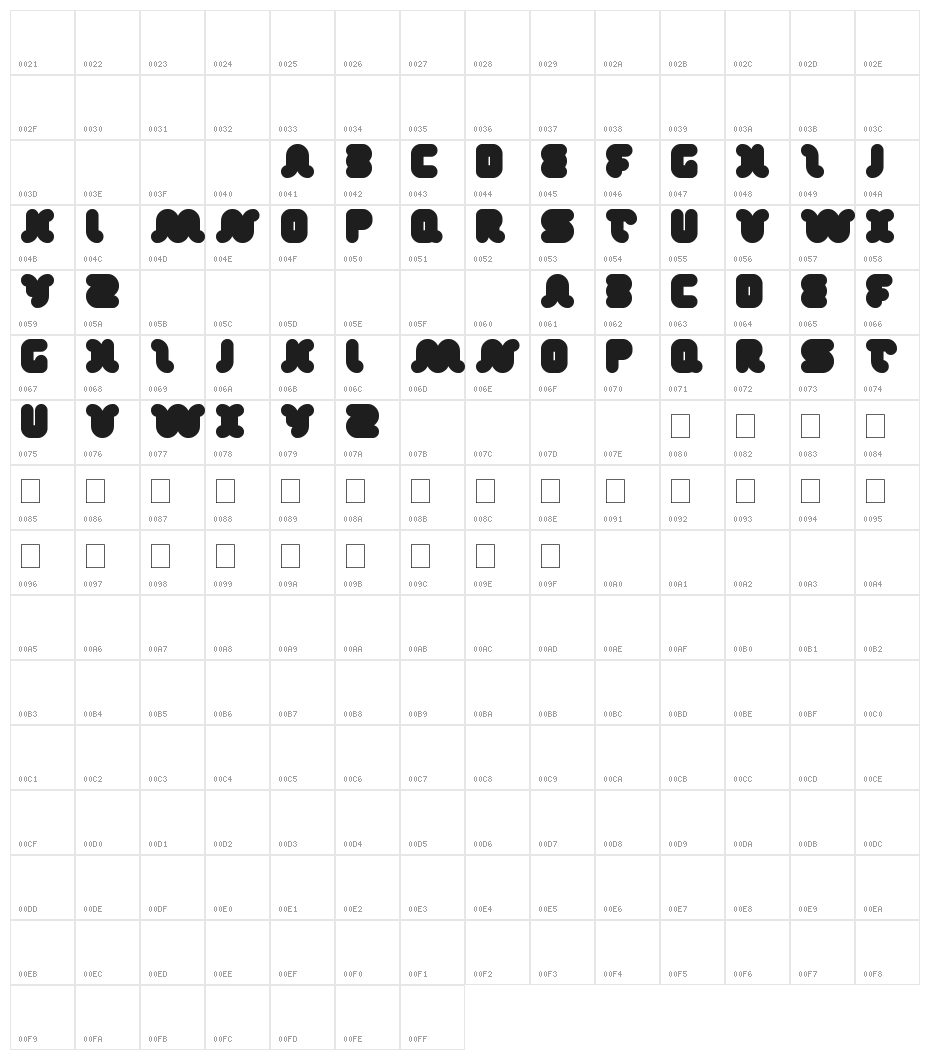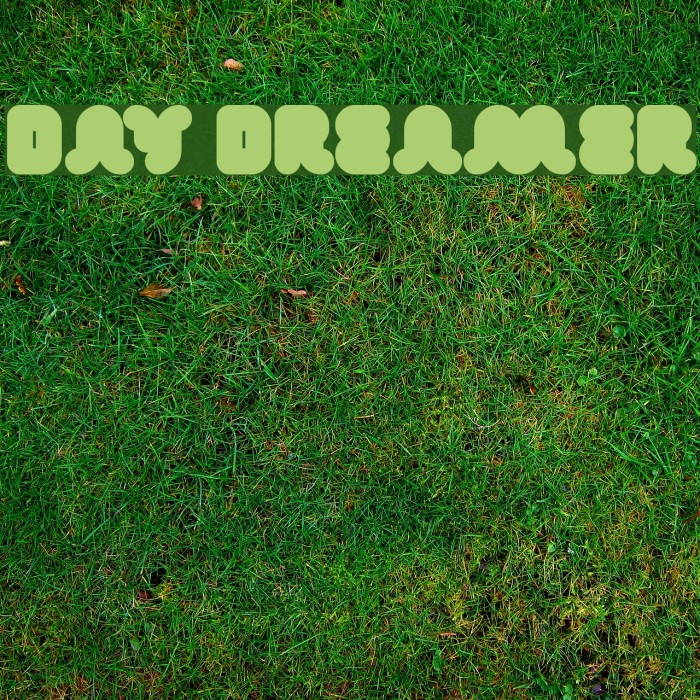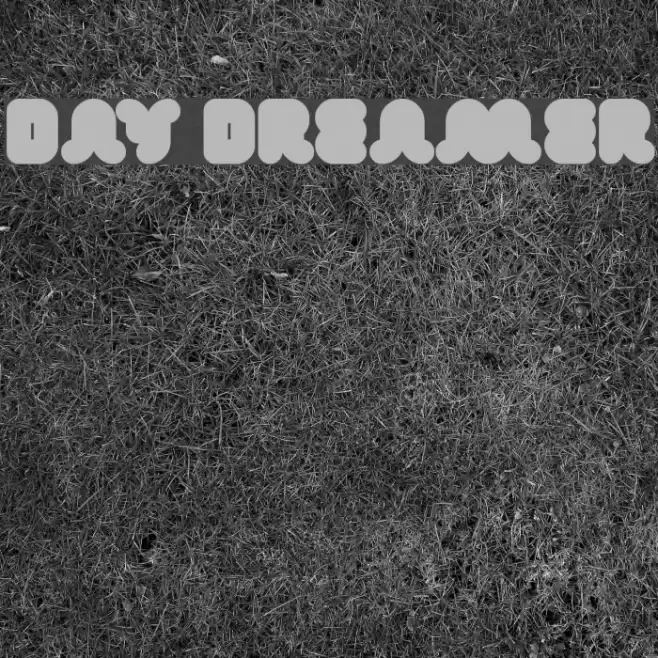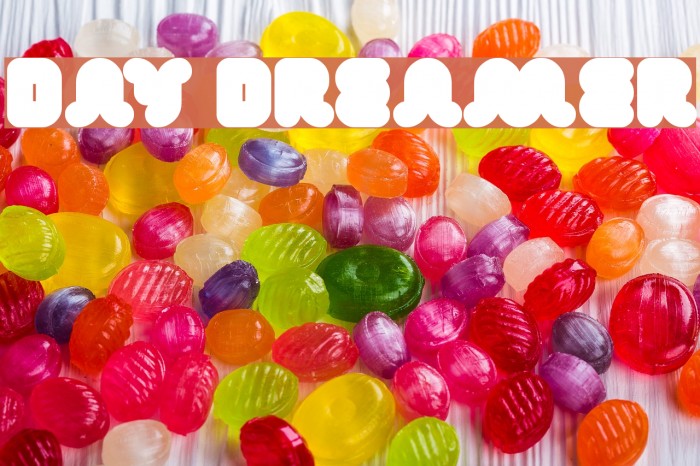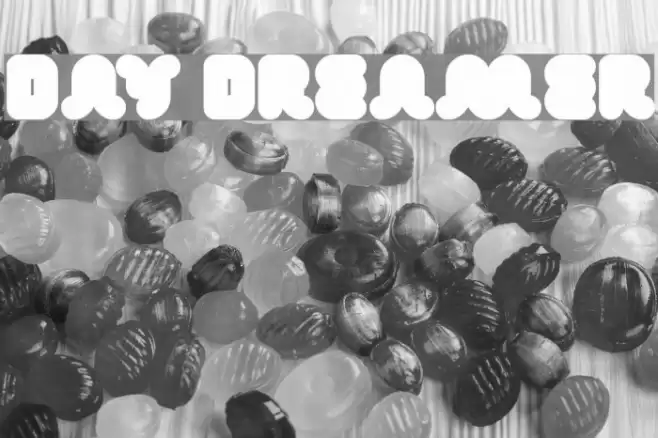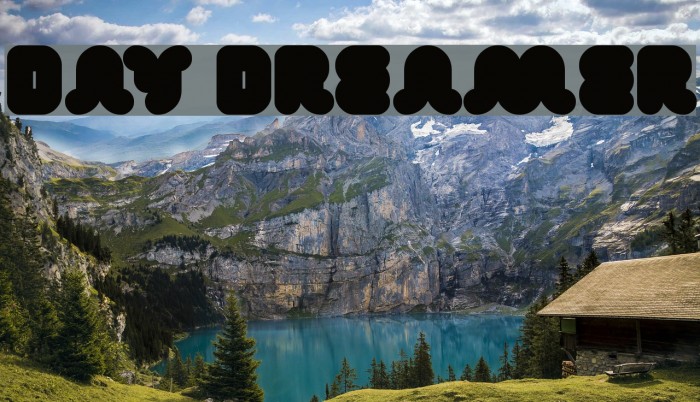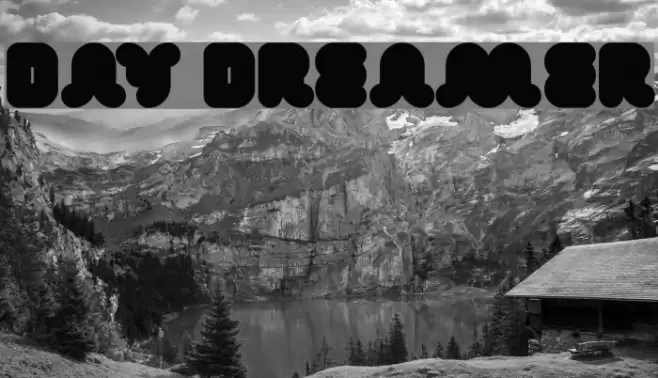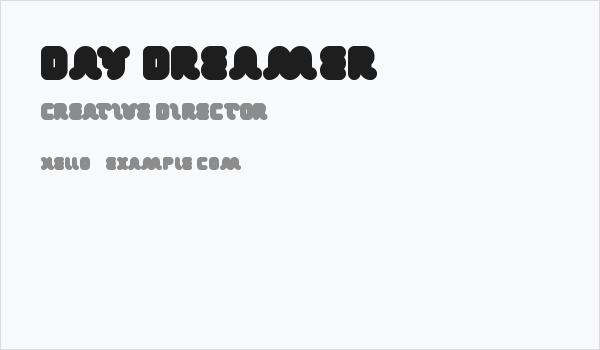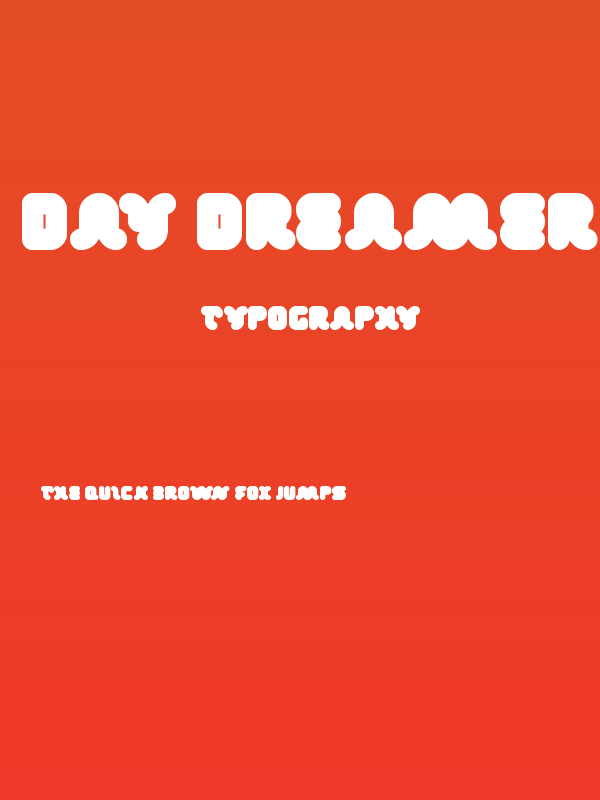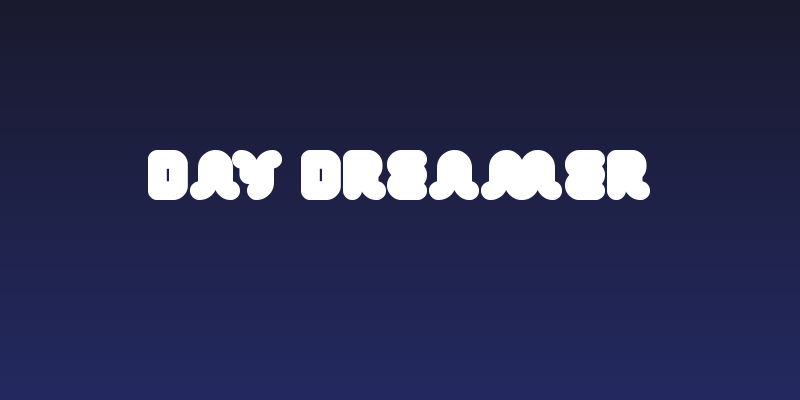
day dreamer Font
day dreamer Description
This font features a bold and playful design with rounded, bubble-like characters that create a sense of fun and whimsy. The letters are uniformly thick, giving them a strong presence on the page. The rounded edges and consistent stroke width contribute to a cohesive and approachable aesthetic. This font is highly decorative, making it ideal for projects that require a touch of creativity and flair. Its unique style ensures that it stands out, making it suitable for eye-catching headlines or artistic designs.
| Proposed Projects | Ideal for children's book covers, playful branding, party invitations, and creative posters. |